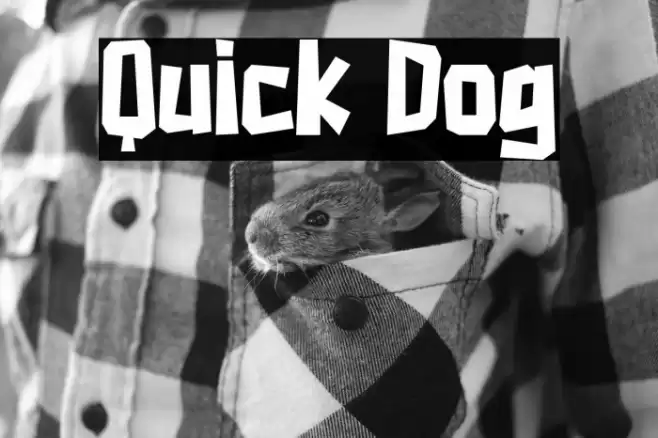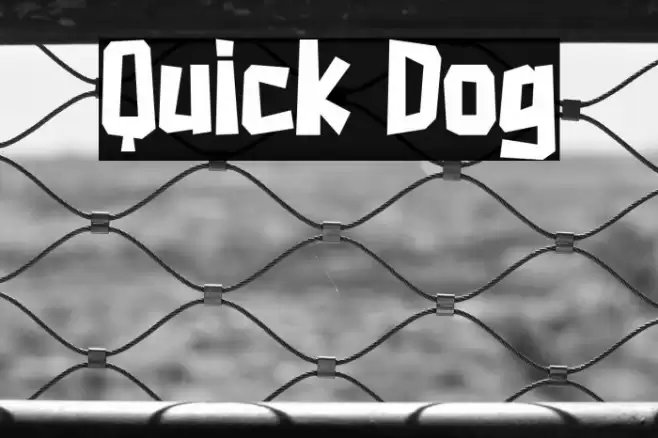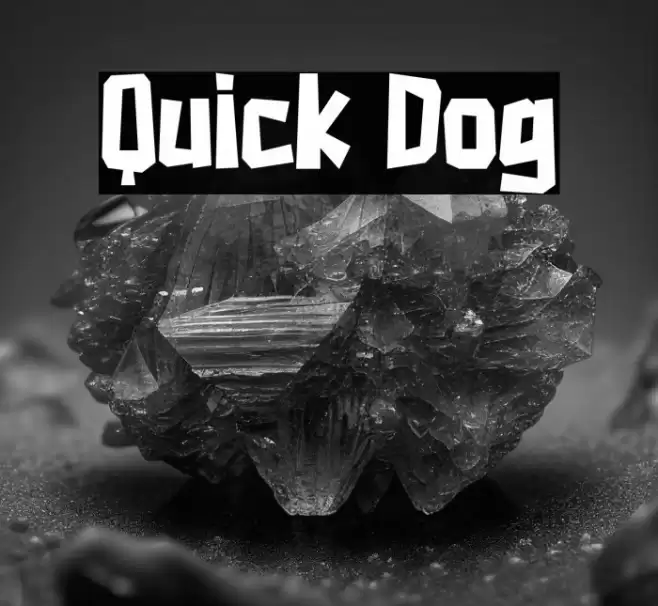
Quick Dog Font
Quick Dog Description
This font features a bold and dynamic style with an edgy, angular design. The characters are slightly irregular, giving them a hand-drawn, energetic feel. The uppercase letters are particularly striking, with sharp angles and a strong presence. Lowercase letters maintain the same boldness, ensuring consistency across the typeface. Numbers and special characters follow the same design principles, making them easily recognizable and cohesive with the rest of the font. The overall appearance is playful yet assertive, making it suitable for projects that require a standout, attention-grabbing typeface.
| Proposed Projects | Ideal for posters, branding, and headlines that need a bold, eye-catching typeface. |